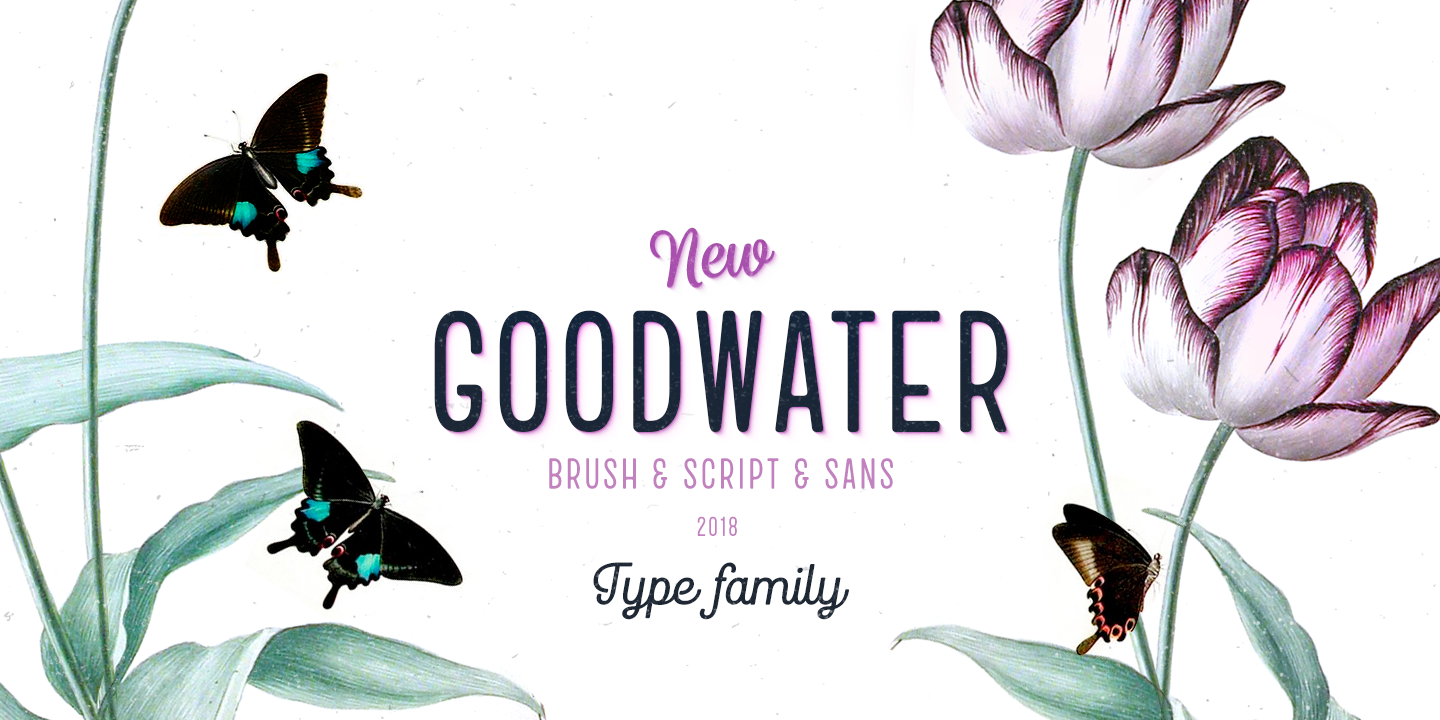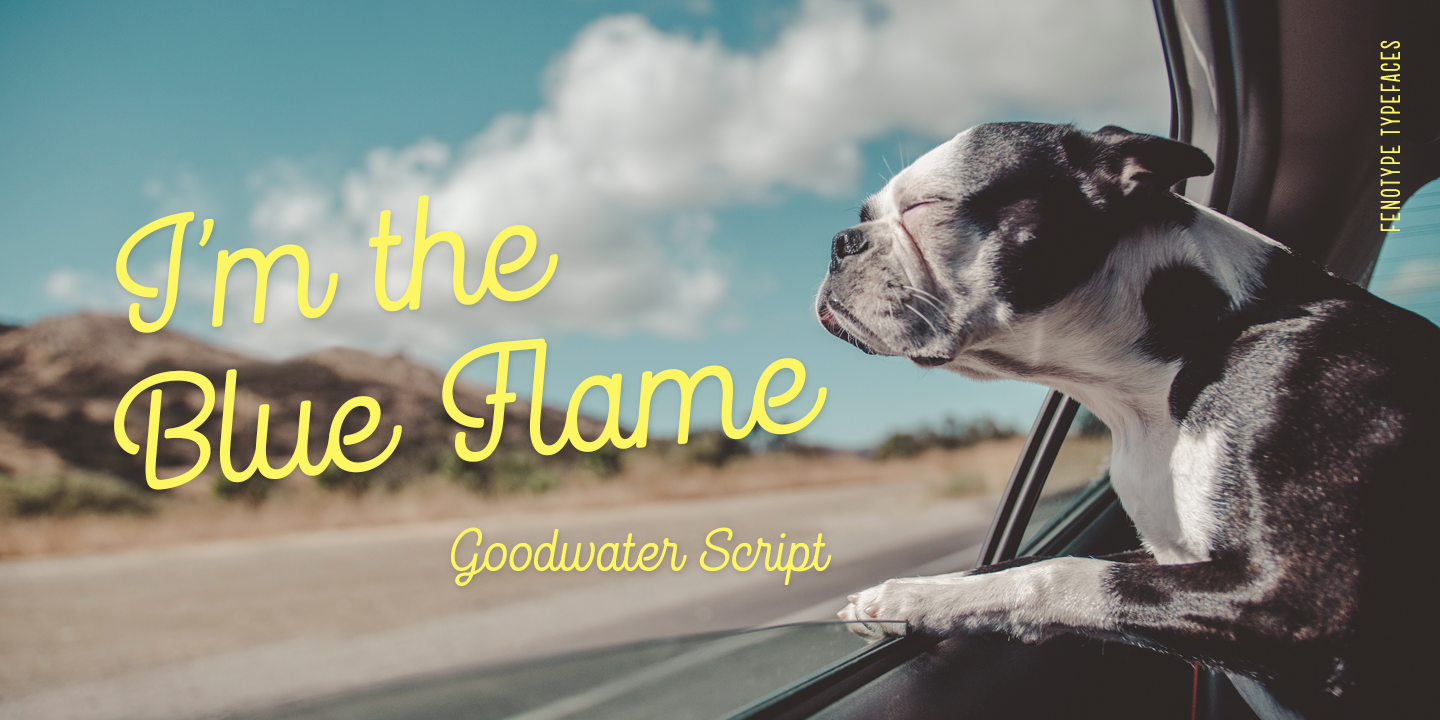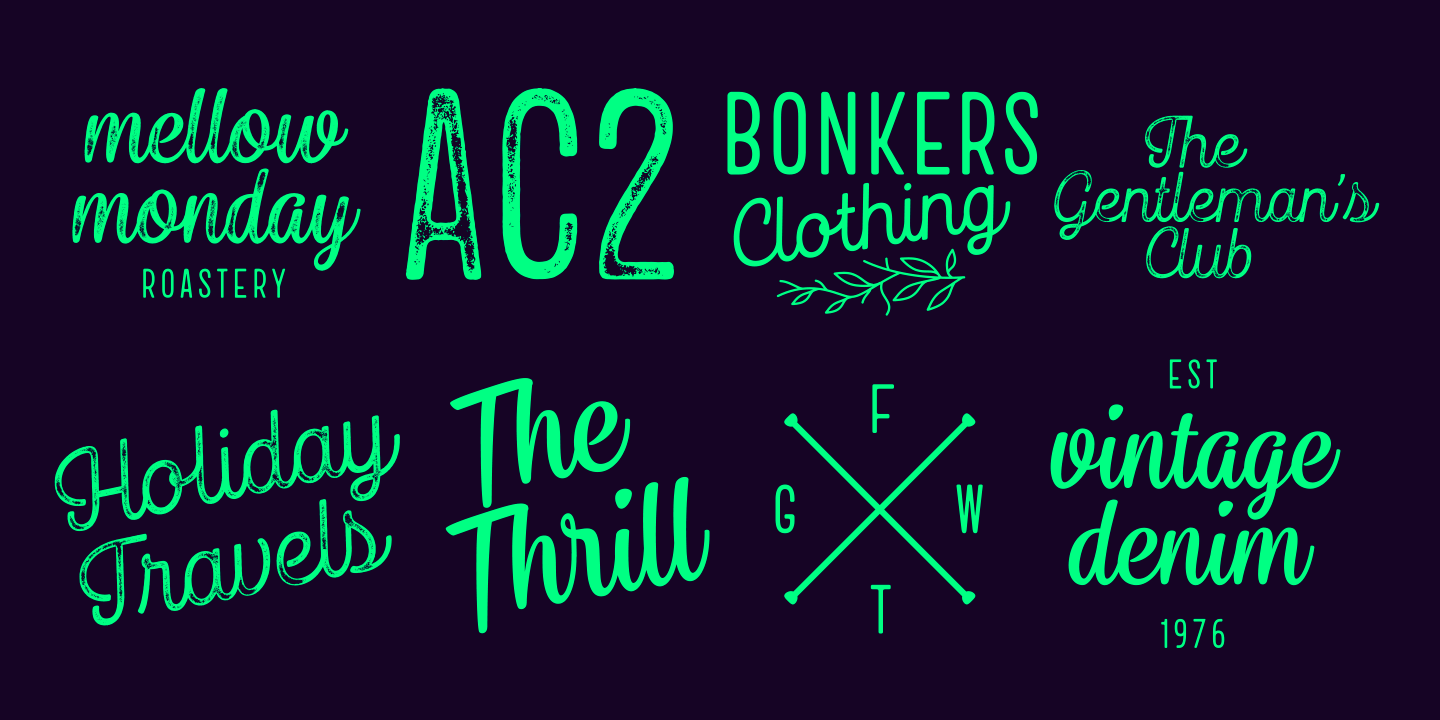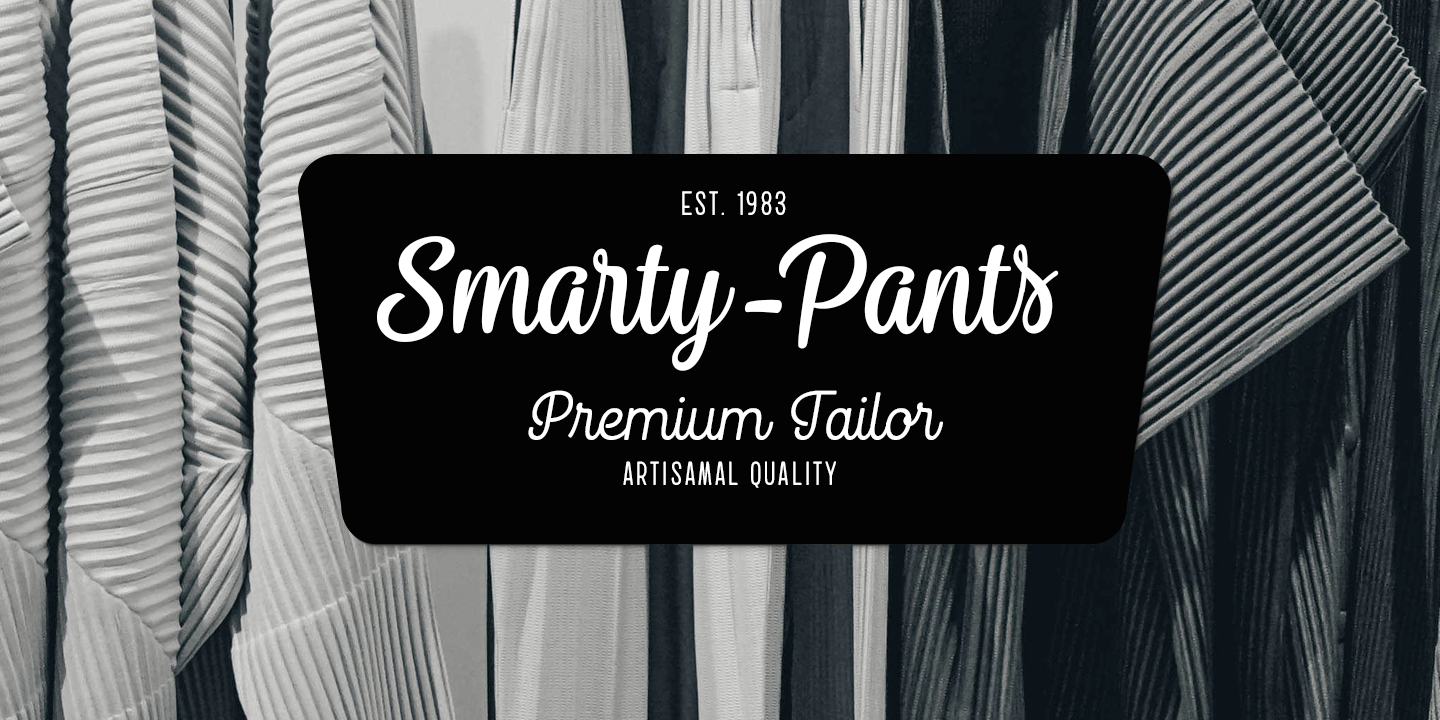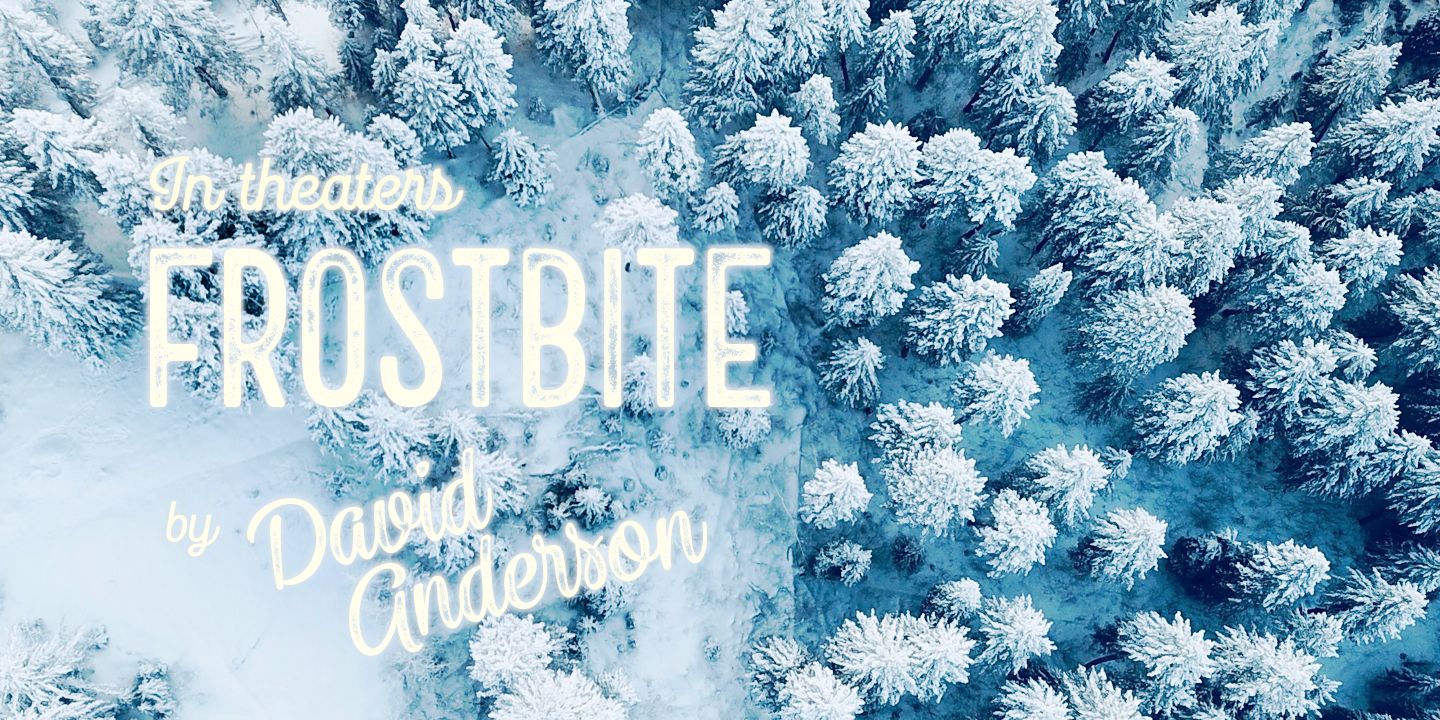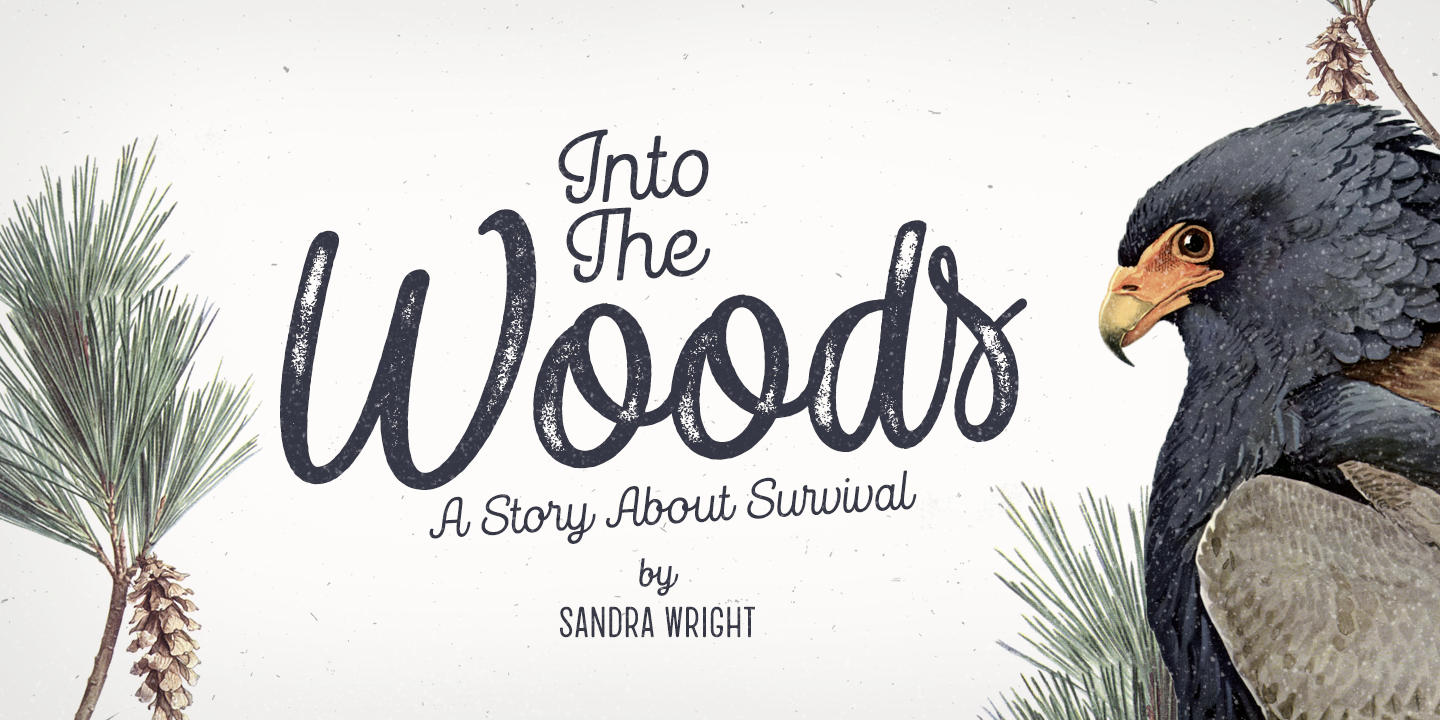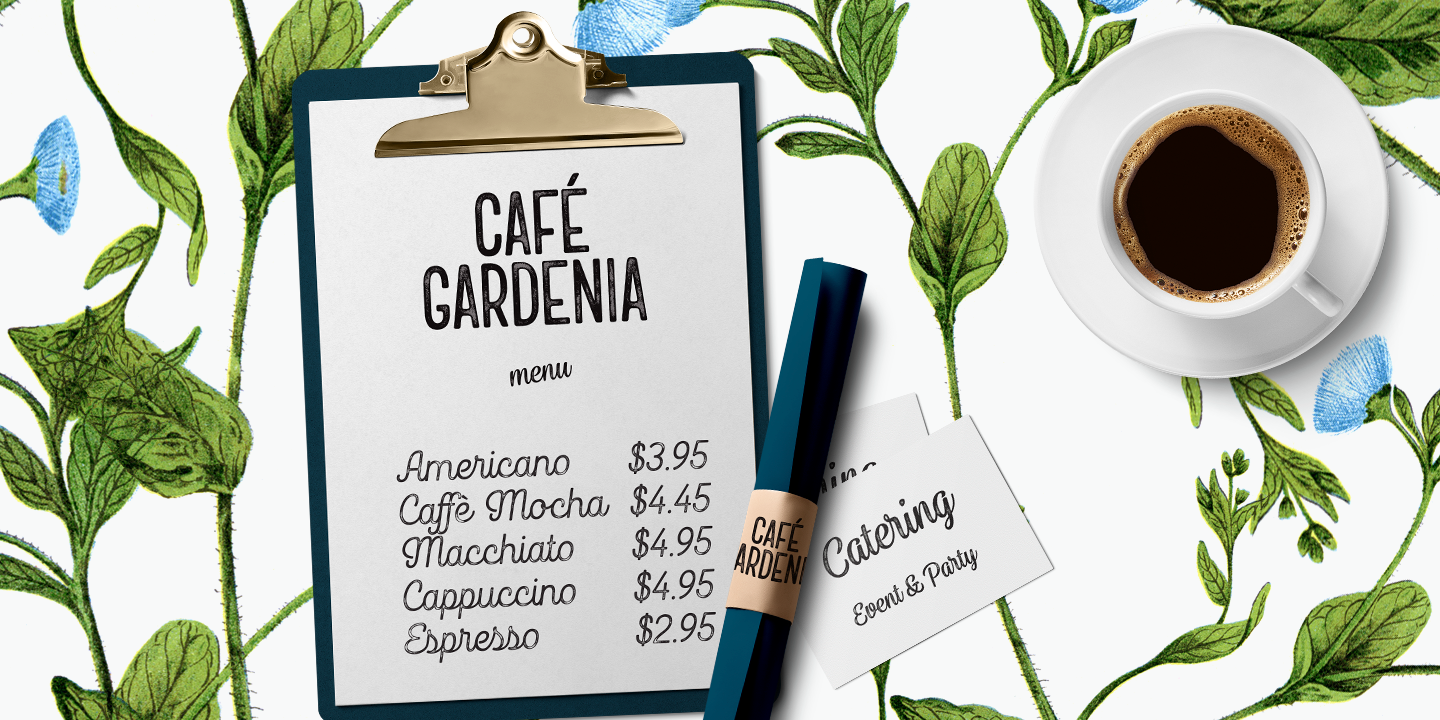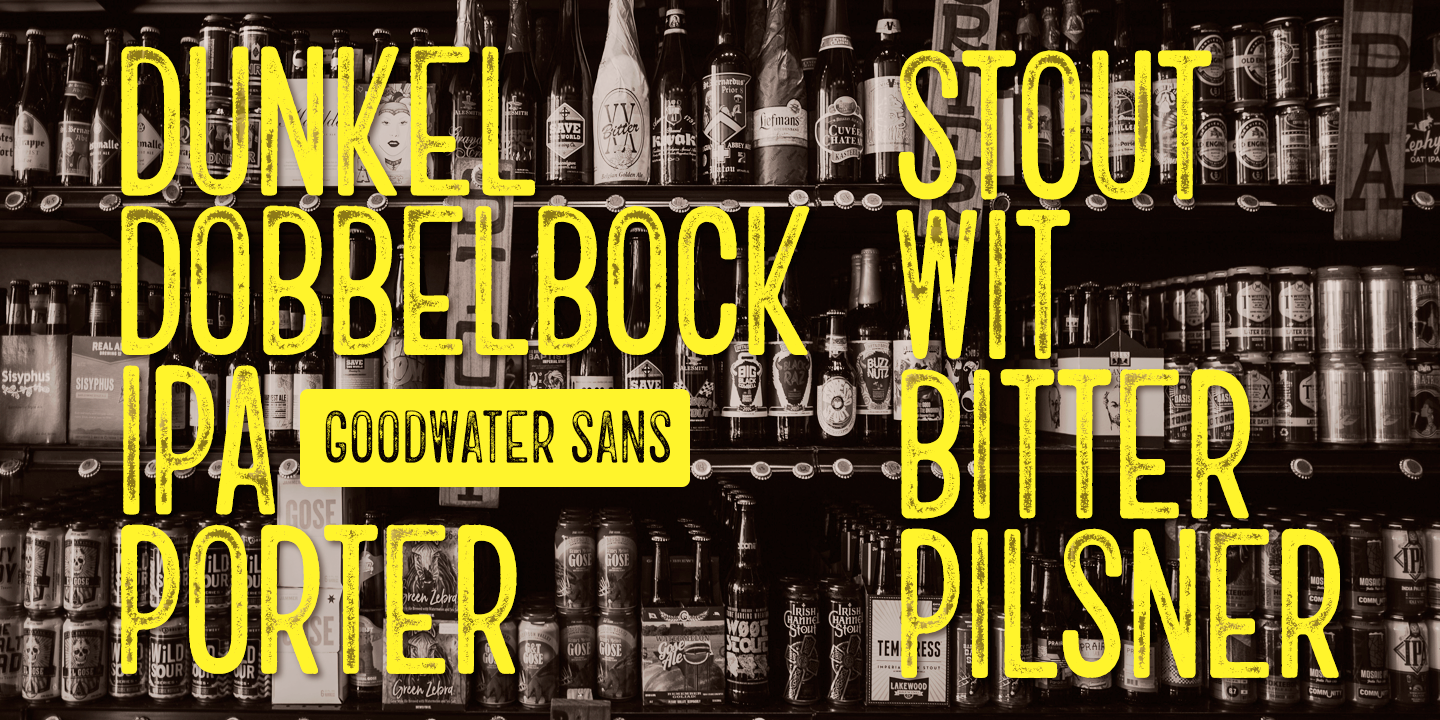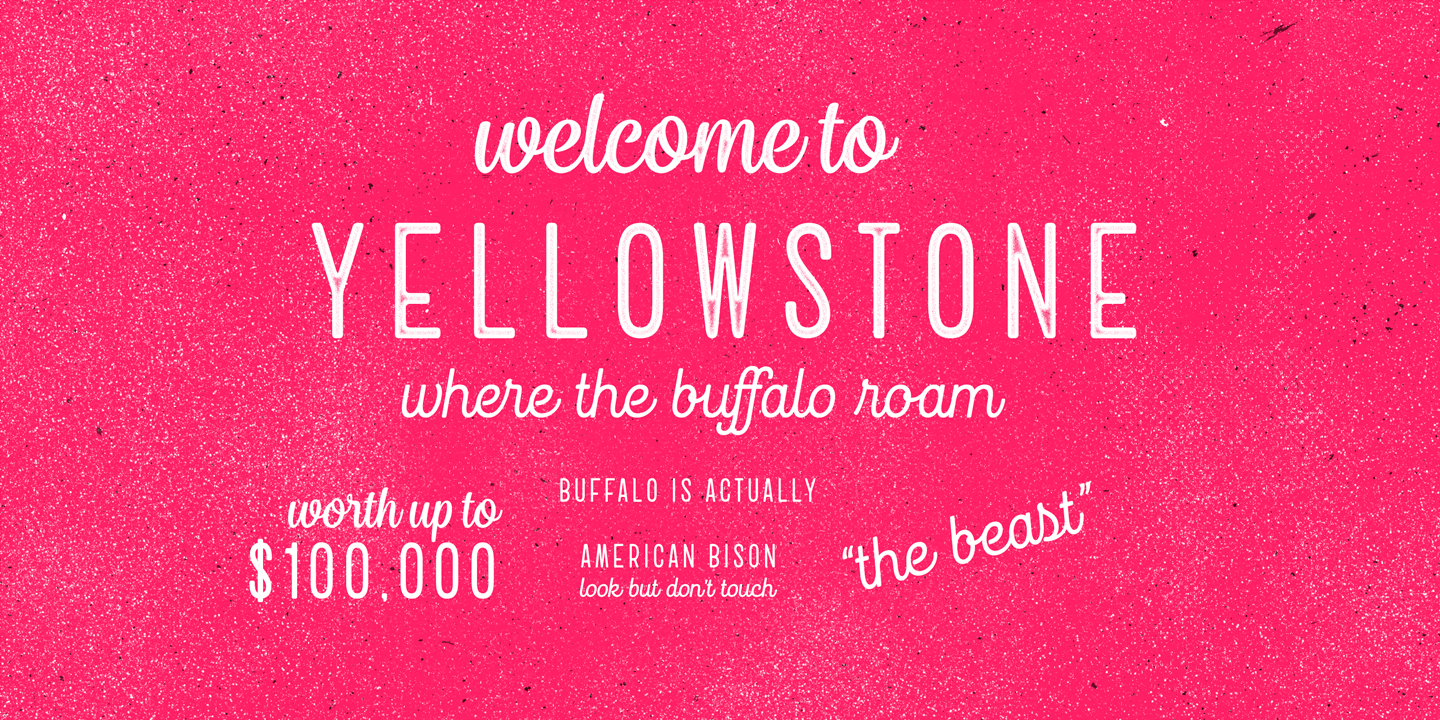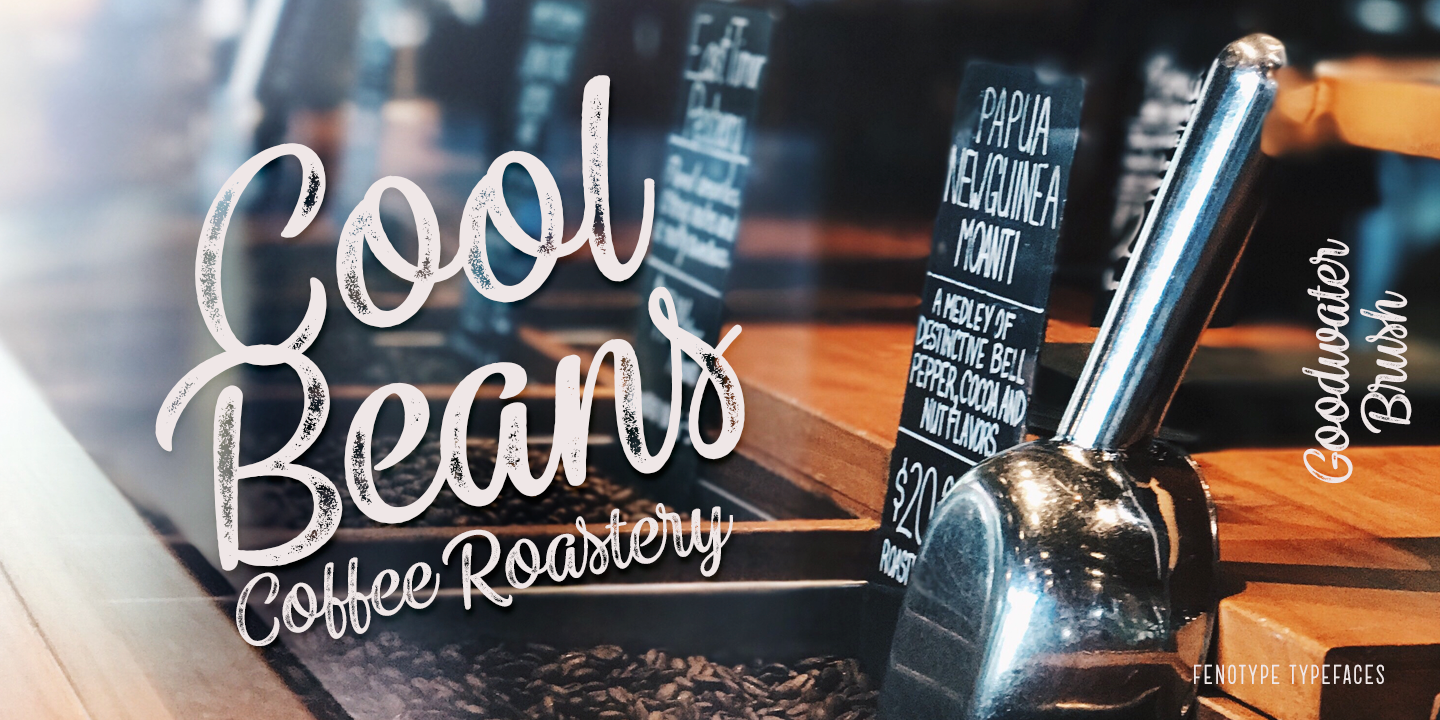
Goodwater Family (16 fonts)
Goodwater is an original collection of a Brush, three weights of a monoline Script and four weights of condensed Sans typeface. Goodwater also has a “Print” version with rugged outline and worn-out texture of each font.
Goodwater is a great pack for any display use from online to logo and from headline to packaging. All the styles are designed using the same proportions and soft corners so that they’ll place nice together. All Print versions have the same texture style and size too so that they’ll fit smooth together.
Goodwater Script and Brush fonts are equipped with automatic Standard Ligatures and Contextual Alternates to keep the flow smooth and it’s best to keep those features on.